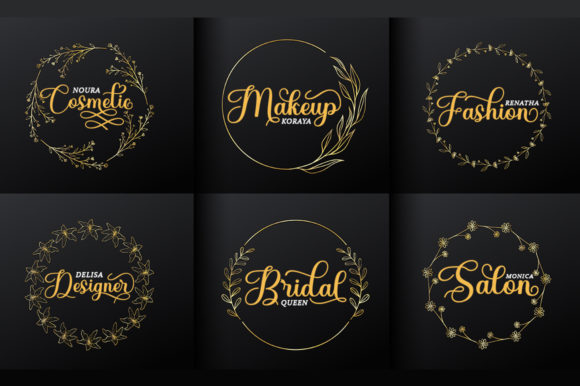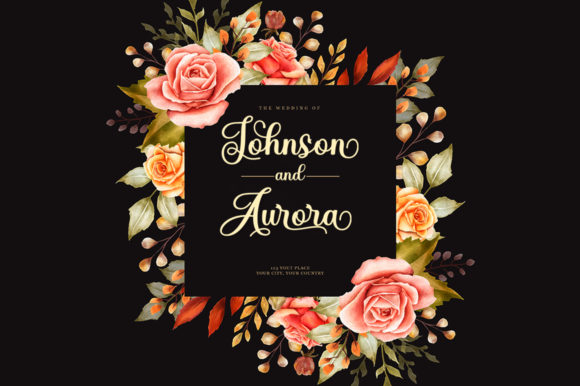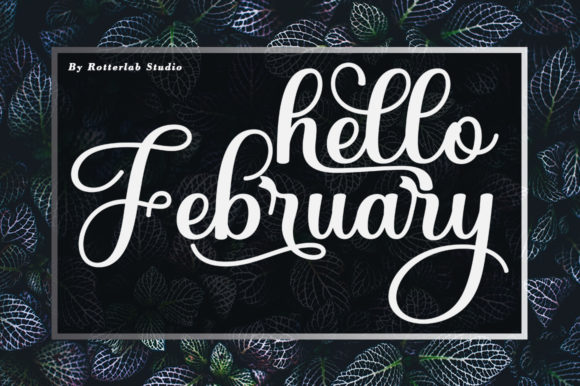
Introduction to Diary Angelique Font
Diary Angelique is an elegant and dainty handwritten font that features sweet and delicate swashes.
It will add a luxury spark to any design project that you wish to create This font is PUA encoded which means you can access all of the amazing glyphs and ligatures with ease.
Key Features of Diary Angelique Font